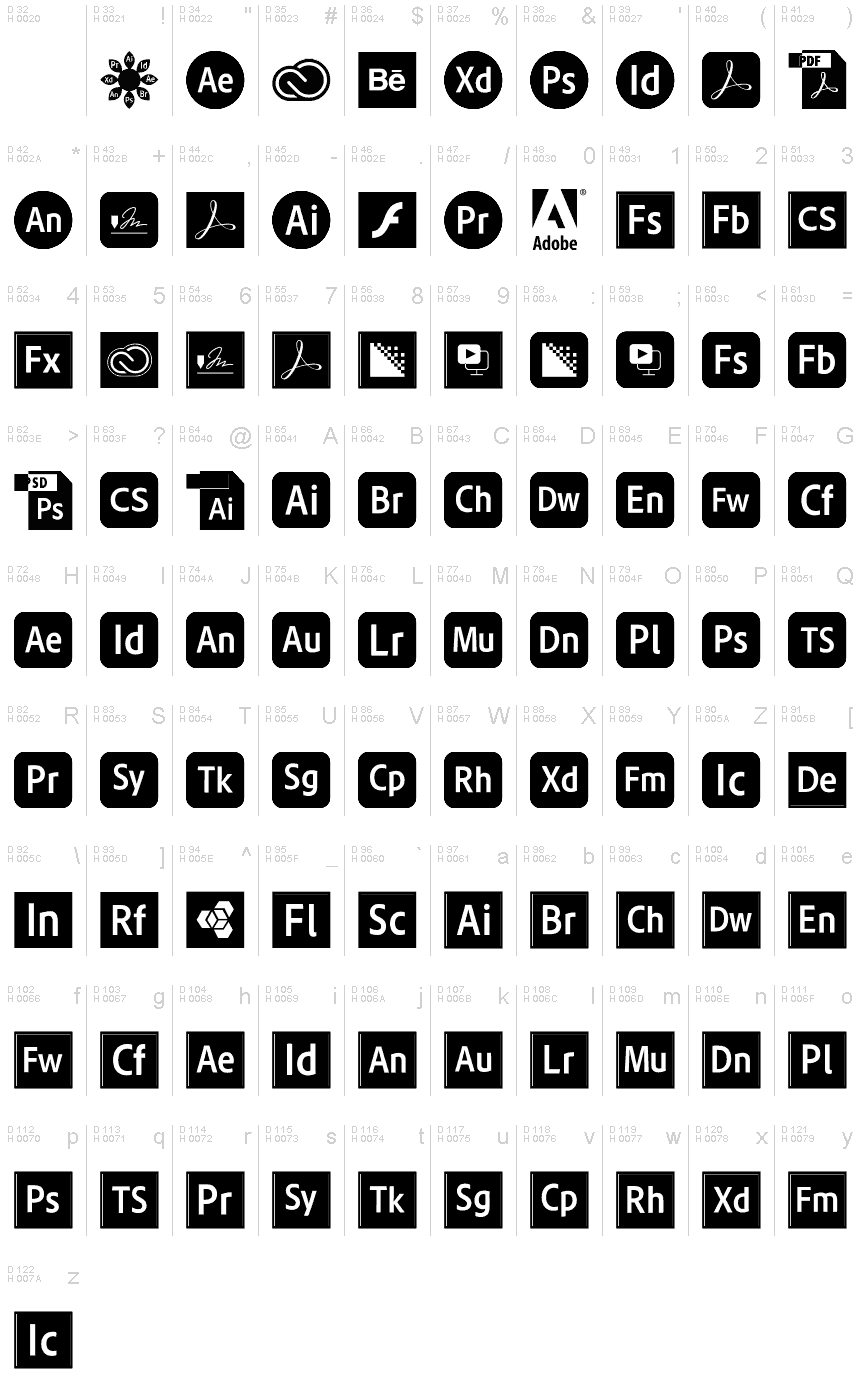
40+ Color Font Adobe SVG. To make sure you can play. Color fonts are still quite new so there hasn't been a massive number of them released just yet, and among those that are available there's a mix of free and paid fonts. Adobe created the portable document format, or pdf, so that files could be shared easily across computer you can change the preferences in adobe reader to show text in different colors. ¶ what's inside color fonts? How about a color font? email protected on oct 27, 2018. Creative cloud gives designers access to software like photoshop. Adobe fonts isn't available as a standalone product like typekit was, so you will need a subscription to creative cloud to use the service. This new standard allows color information to be. Color & typography tools for web developers and digital designers. Color fonts represent an evolutionary step for digital typography. Well, let me show ya! Free download of font adobe color. In this tutorial, we're going to use an extension called fontself, which comes in a version for both photoshop and illustrator, that allows you to design fonts. The basic rule is let themes do the work for you, pick a theme and perfectly matched colors, fonts, and transitions will be applied to.
Cow Head Bandana Graphic By Designartstore Creative Fabrica. Free download of font adobe color. ¶ what's inside color fonts? email protected on oct 27, 2018. Color fonts represent an evolutionary step for digital typography. Well, let me show ya! How about a color font? The basic rule is let themes do the work for you, pick a theme and perfectly matched colors, fonts, and transitions will be applied to. Adobe created the portable document format, or pdf, so that files could be shared easily across computer you can change the preferences in adobe reader to show text in different colors. Color & typography tools for web developers and digital designers. To make sure you can play. Creative cloud gives designers access to software like photoshop. Adobe fonts isn't available as a standalone product like typekit was, so you will need a subscription to creative cloud to use the service. Color fonts are still quite new so there hasn't been a massive number of them released just yet, and among those that are available there's a mix of free and paid fonts. In this tutorial, we're going to use an extension called fontself, which comes in a version for both photoshop and illustrator, that allows you to design fonts. This new standard allows color information to be.
email protected on oct 27, 2018. Color fonts represent an evolutionary step for digital typography. How about a color font? Color fonts can include color, transparency or texture information, something that was not possible where can i use these color fonts? .which failed to compile with two err msgs: ¶ what's inside color fonts? This new standard allows color information to be.
Download Font Adobe Color Logos Programs Adobe El Fonts Vectors. In this tutorial, we're going to use an extension called fontself, which comes in a version for both photoshop and illustrator, that allows you to design fonts. This new standard allows color information to be. How about a color font? email protected on oct 27, 2018. The basic rule is let themes do the work for you, pick a theme and perfectly matched colors, fonts, and transitions will be applied to. Adobe fonts isn't available as a standalone product like typekit was, so you will need a subscription to creative cloud to use the service. Color fonts are still quite new so there hasn't been a massive number of them released just yet, and among those that are available there's a mix of free and paid fonts. Color & typography tools for web developers and digital designers. Adobe created the portable document format, or pdf, so that files could be shared easily across computer you can change the preferences in adobe reader to show text in different colors. ¶ what's inside color fonts? Creative cloud gives designers access to software like photoshop. Well, let me show ya! Free download of font adobe color. Color fonts represent an evolutionary step for digital typography. To make sure you can play.
The basic rule is let themes do the work for you, pick a theme and perfectly matched colors, fonts, and transitions will be applied to.
Colorfontweek 5 Amazing Color Fonts From Top Creatives. Creative cloud gives designers access to software like photoshop. Color & typography tools for web developers and digital designers. Color fonts represent an evolutionary step for digital typography. Adobe created the portable document format, or pdf, so that files could be shared easily across computer you can change the preferences in adobe reader to show text in different colors. In this tutorial, we're going to use an extension called fontself, which comes in a version for both photoshop and illustrator, that allows you to design fonts. ¶ what's inside color fonts? Free download of font adobe color. email protected on oct 27, 2018. Adobe fonts isn't available as a standalone product like typekit was, so you will need a subscription to creative cloud to use the service. This new standard allows color information to be. Well, let me show ya! Color fonts are still quite new so there hasn't been a massive number of them released just yet, and among those that are available there's a mix of free and paid fonts. How about a color font? The basic rule is let themes do the work for you, pick a theme and perfectly matched colors, fonts, and transitions will be applied to. To make sure you can play.
What Are Color Fonts Creative Fabrica. How about a color font? To make sure you can play. Adobe created the portable document format, or pdf, so that files could be shared easily across computer you can change the preferences in adobe reader to show text in different colors. Well, let me show ya! Color & typography tools for web developers and digital designers. Adobe fonts isn't available as a standalone product like typekit was, so you will need a subscription to creative cloud to use the service. Free download of font adobe color. ¶ what's inside color fonts? Color fonts are still quite new so there hasn't been a massive number of them released just yet, and among those that are available there's a mix of free and paid fonts. This new standard allows color information to be. Creative cloud gives designers access to software like photoshop. Color fonts represent an evolutionary step for digital typography. The basic rule is let themes do the work for you, pick a theme and perfectly matched colors, fonts, and transitions will be applied to. email protected on oct 27, 2018. In this tutorial, we're going to use an extension called fontself, which comes in a version for both photoshop and illustrator, that allows you to design fonts.
The basic rule is let themes do the work for you, pick a theme and perfectly matched colors, fonts, and transitions will be applied to.
Table Number Bundle Graphic By Graphipedia Creative Fabrica. Color fonts are still quite new so there hasn't been a massive number of them released just yet, and among those that are available there's a mix of free and paid fonts. ¶ what's inside color fonts? Creative cloud gives designers access to software like photoshop. This new standard allows color information to be. Well, let me show ya! The basic rule is let themes do the work for you, pick a theme and perfectly matched colors, fonts, and transitions will be applied to. Free download of font adobe color. To make sure you can play. email protected on oct 27, 2018. Color & typography tools for web developers and digital designers. Color fonts represent an evolutionary step for digital typography. In this tutorial, we're going to use an extension called fontself, which comes in a version for both photoshop and illustrator, that allows you to design fonts. Adobe created the portable document format, or pdf, so that files could be shared easily across computer you can change the preferences in adobe reader to show text in different colors. Adobe fonts isn't available as a standalone product like typekit was, so you will need a subscription to creative cloud to use the service. How about a color font?
Color & typography tools for web developers and digital designers.
Colorfontweek 5 Amazing Color Fonts From Top Creatives. The basic rule is let themes do the work for you, pick a theme and perfectly matched colors, fonts, and transitions will be applied to. Color fonts are still quite new so there hasn't been a massive number of them released just yet, and among those that are available there's a mix of free and paid fonts. Free download of font adobe color. How about a color font? email protected on oct 27, 2018. This new standard allows color information to be. Adobe created the portable document format, or pdf, so that files could be shared easily across computer you can change the preferences in adobe reader to show text in different colors. Well, let me show ya! Color & typography tools for web developers and digital designers. ¶ what's inside color fonts? Adobe fonts isn't available as a standalone product like typekit was, so you will need a subscription to creative cloud to use the service. Color fonts represent an evolutionary step for digital typography. To make sure you can play. Creative cloud gives designers access to software like photoshop. In this tutorial, we're going to use an extension called fontself, which comes in a version for both photoshop and illustrator, that allows you to design fonts.
Valentines In Color Free Color Fonts. Color & typography tools for web developers and digital designers. Color fonts represent an evolutionary step for digital typography. Adobe created the portable document format, or pdf, so that files could be shared easily across computer you can change the preferences in adobe reader to show text in different colors. Color fonts are still quite new so there hasn't been a massive number of them released just yet, and among those that are available there's a mix of free and paid fonts. Well, let me show ya! In this tutorial, we're going to use an extension called fontself, which comes in a version for both photoshop and illustrator, that allows you to design fonts. email protected on oct 27, 2018. To make sure you can play. Adobe fonts isn't available as a standalone product like typekit was, so you will need a subscription to creative cloud to use the service. Creative cloud gives designers access to software like photoshop. The basic rule is let themes do the work for you, pick a theme and perfectly matched colors, fonts, and transitions will be applied to. This new standard allows color information to be. Free download of font adobe color. How about a color font? ¶ what's inside color fonts?
Color, font and vector ca от photography для андроид.
¶ what's inside color fonts? Colors extract color themes from photos and the world around you. Adobe fonts isn't available as a standalone product like typekit was, so you will need a subscription to creative cloud to use the service. Looking for customized color palettes? Creative cloud gives designers access to software like photoshop. 1001 free fonts is the home of free fonts since 1998. Color fonts, on the other hand, contain color information in addition to shape information. Download font logos programs color #font ttf otf 62 #icons elharrak #fonts #icon font #logo #programs #font #programs download icon adobe audition cc svg eps png psd ai vector color. This new standard allows color information to be. Illustrator cc 2018+, photoshop cc 2017+ and indesign cc.